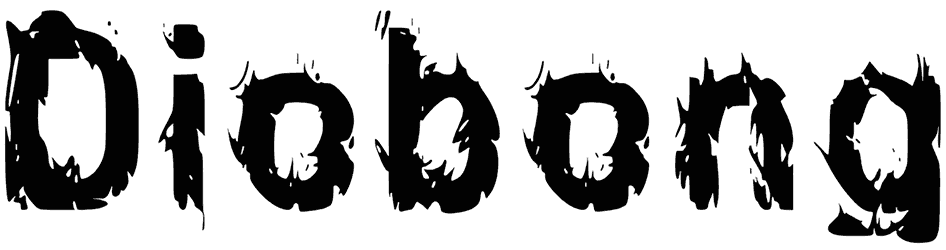
d Diobong Font
d Diobong font is an attractive way to make your message stand out from the crowd. This fire font‘s bold lines and vibrant edges can depict the raw energy and intensity of the flames dancing in the dark.
Every word flickers and attracts the eye. As a result, it can represent passion and creativity in your design. Whether designing a logo, poster, or social media post, this fancy font is a surefire way to add some heat to your message.